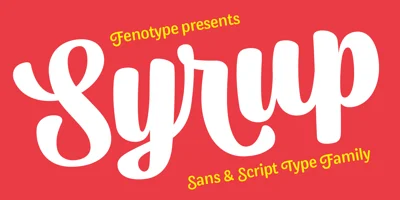
Syrup Font
Syrup Font is ideal for breakfast restaurant branding, pancake house signage, sweet confectionery packaging, bakery communications, dessert menu design, candy shop materials, ice cream parlor promotions, maple syrup product labels, comfort food marketing, and indulgent treat applications. This delightful typeface creates authentic sweetness atmosphere in both cozy print and digital food service platforms.
What makes Syrup Font exciting is its luscious flowing character that perfectly captures the smooth sweetness and comforting warmth of golden syrup with appetizing appeal. The font features smooth letterforms with syrupy proportions and sweet character details that evoke drizzling honey, flowing maple syrup, and delicious breakfast moments. Its delicious design establishes an atmosphere of comfort food satisfaction and sweet indulgence that resonates with food lovers seeking authentic culinary experiences and comforting treats.
Syrup Font family includes sweet variations: Light, Regular, Medium, Bold, and Drizzle versions, each with flowing alternates and sweet character sets. Each variant maintains the font's delicious personality while providing designers with appetizing options for creating sweet typography systems and culinary communication materials.
This exceptional culinary typeface brings authentic food credibility to projects requiring sweet presentation. Whether you're designing breakfast brands, dessert marketing, or comfort food materials, Syrup Font delivers outstanding sweetness and culinary sophistication. The font's flowing proportions and sweet details ensure memorable taste connection across various food applications.